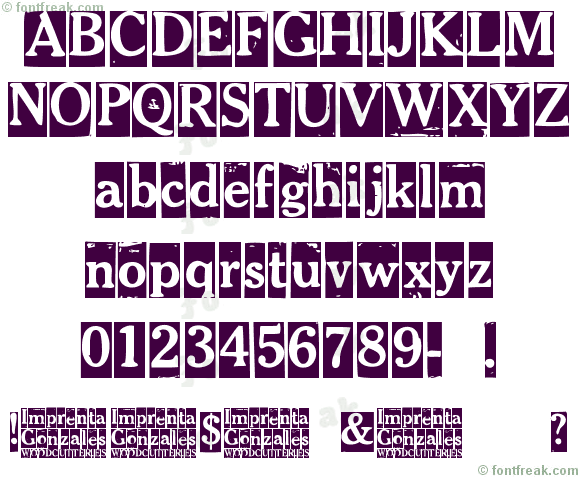
Imprenta Gonzales
Imprenta Gonzales is a captivating display typeface crafted by woodcutter Manero, showcasing a unique blend of artistic flair and vintage charm. This serif font features a distinctive, slightly distressed appearance that evokes a sense of nostalgia, making it perfect for projects that require a touch of authenticity. The strokes exhibit moderate weight with subtle contrast, lending a balanced yet eye-catching quality to the characters. Its spacious letterforms ensure readability while maintaining an artistic aesthetic, making it suitable for various applications.
This font is particularly well-suited for wedding invitations, where its romantic and timeless feel can elevate the overall design. It also works beautifully on movie posters, capturing the attention of viewers with its bold personality. Additionally, Imprenta Gonzales can enhance restaurant menus, offering a rustic vibe that complements any culinary theme. Graphic designers will find this typeface invaluable for branding projects, as it conveys a strong sense of character and uniqueness. Small business owners looking to create memorable marketing materials will also appreciate the font's distinctive style.
The target audience for Imprenta Gonzales includes graphic designers, small business owners, and content creators who seek to convey a sense of tradition and artistry in their work. With its free license, this font provides an accessible option for those looking to enhance their design projects without compromising on quality.
What sets Imprenta Gonzales apart is its ability to blend vintage aesthetics with contemporary design needs. Its unique visual character not only captures attention but also evokes emotions, making it a versatile choice for a myriad of creative applications. Don’t miss the opportunity to enhance your designs with this striking typeface; seek out the Imprenta Gonzales font free download today.